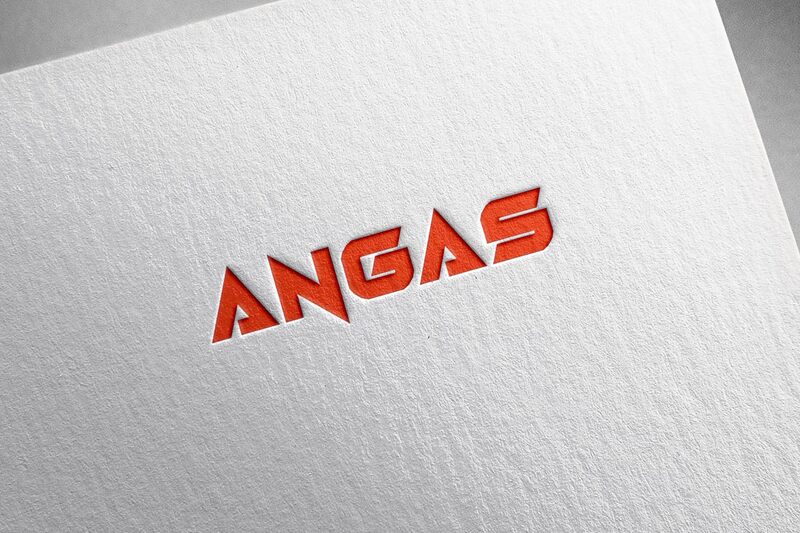
Angas Ultra, a creation by EyeCone, is a futuristic display font that exudes coolness and boldness. With its thick lettering and extra-expanded width, it is perfectly suited for a wide range of projects.
Whether you need to design eye-catching posters, attention-grabbing flyers, or high-quality prints that leave a lasting impression, Angas Ultra is the ideal choice. Its unique style will add a touch of modernity and sophistication to any design. Embrace the endless possibilities this font offers and let your creativity shine through in your futuristic creations.